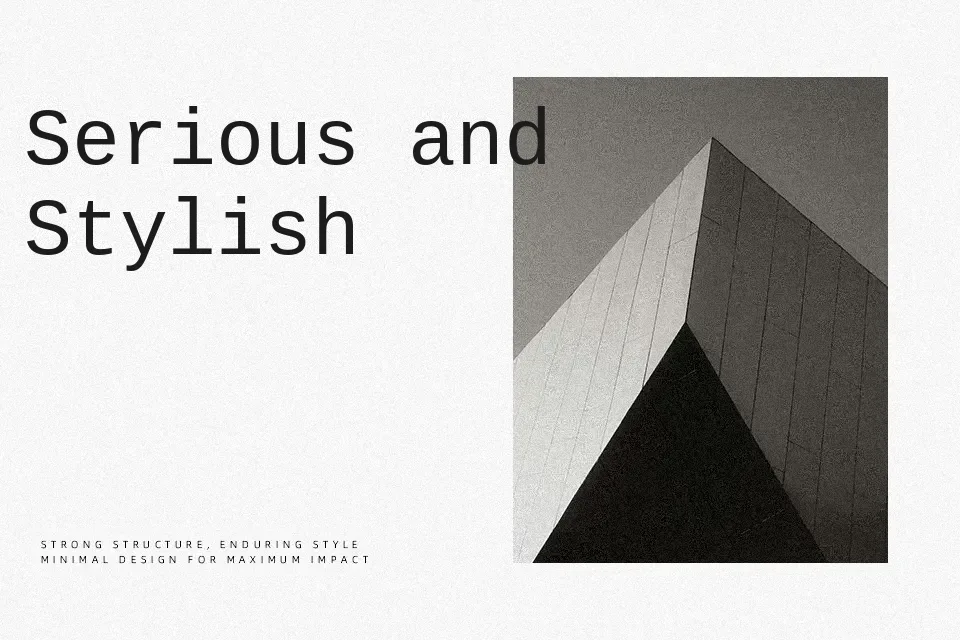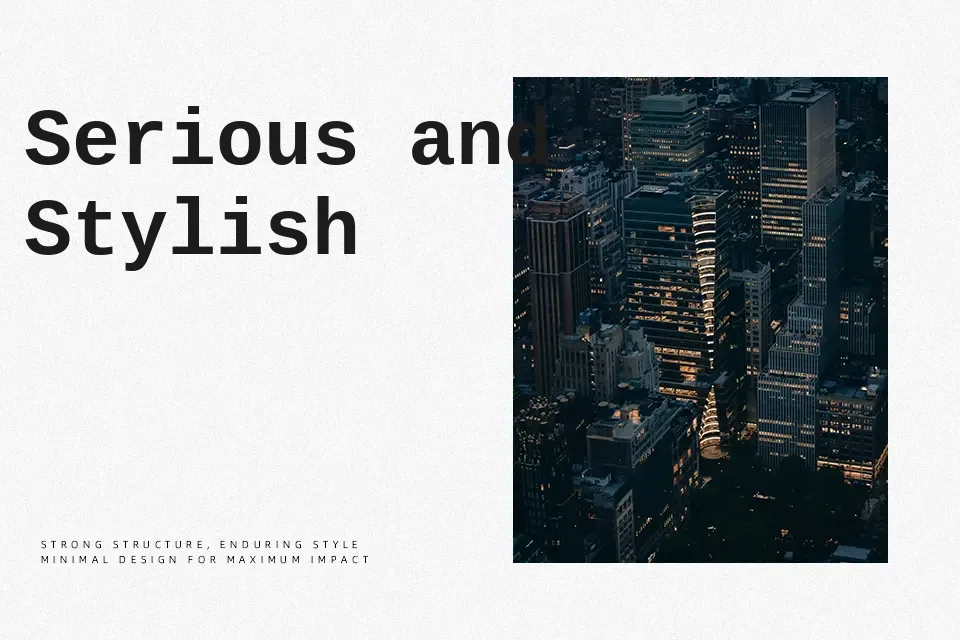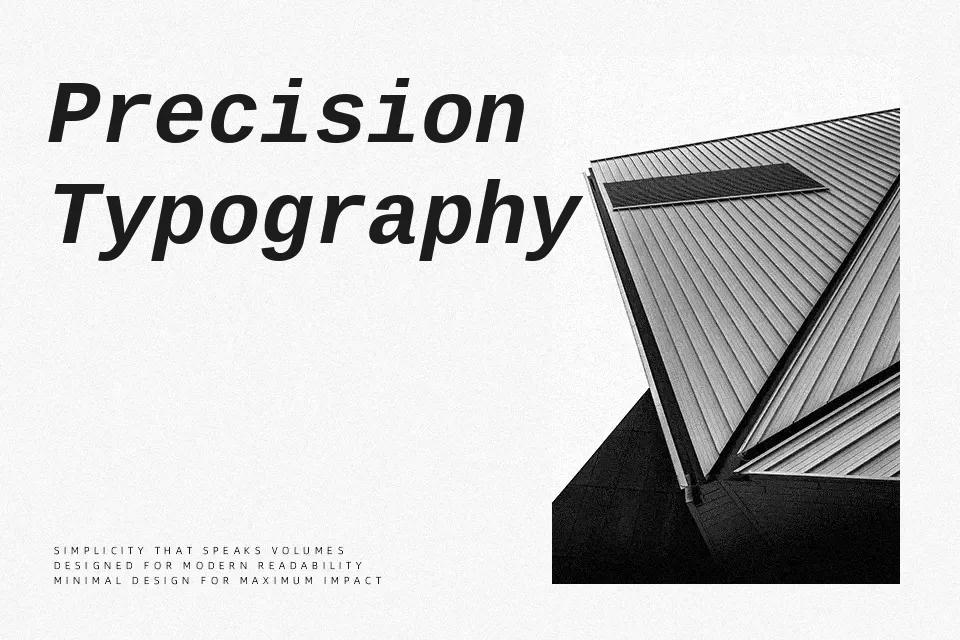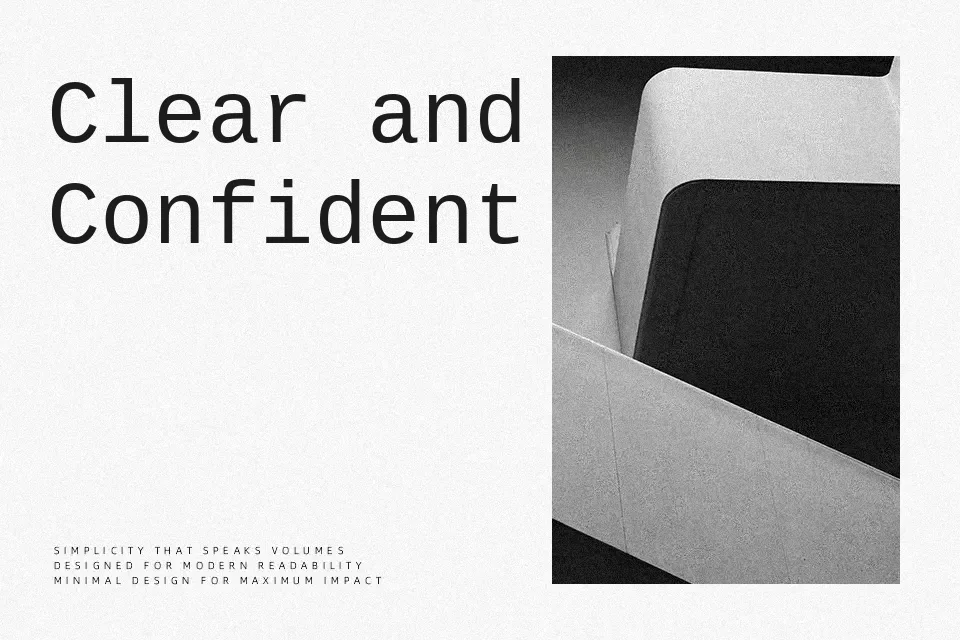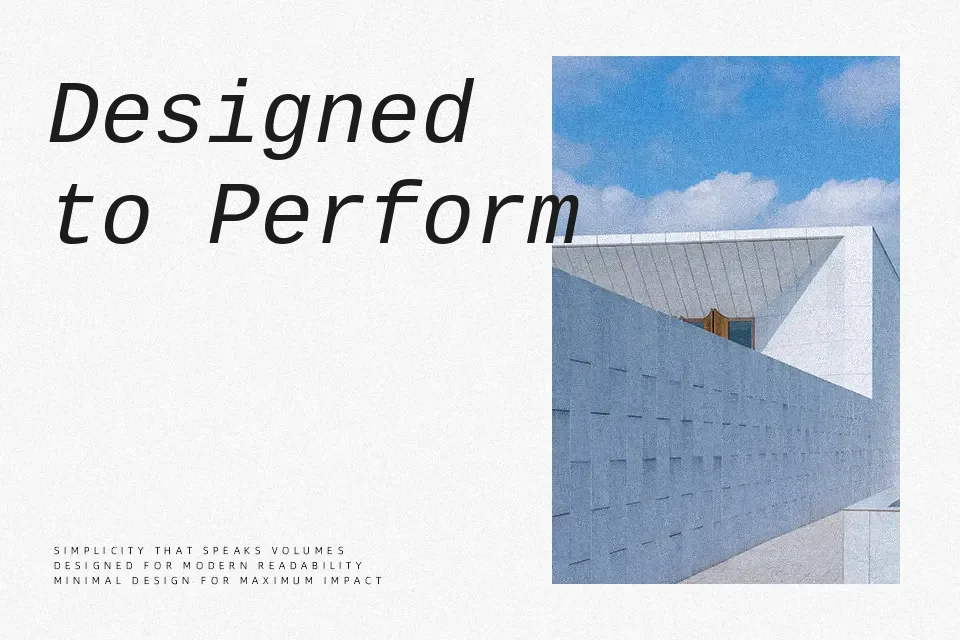
Cousine Font
Designed by Steve Matteson
Cousine is a monospaced sans serif with squared curves, short extenders, and controlled contrast that keeps every character sitting neatly in a tight grid. The spacing feels slightly generous compared to classic system monospace faces, so code, tables, and command-line text stay legible without looking cramped. Its overall impression is practical and professional rather than flashy, which works nicely for dashboards, developer tools, and technical documentation where clarity beats personality. On the other hand, branding work, editorial layouts, or anything that needs strong typographic voice may feel a bit bland with Cousine alone, so it often benefits from being paired with a more expressive display or serif family.
coding interfaces
technical documentation
terminal-style UI text
data-heavy layouts
expressive branding
fashion or luxury layouts
long-form editorial reading
kids products
Perfect for body text, headline, and ui design, with a calm and monospace style.